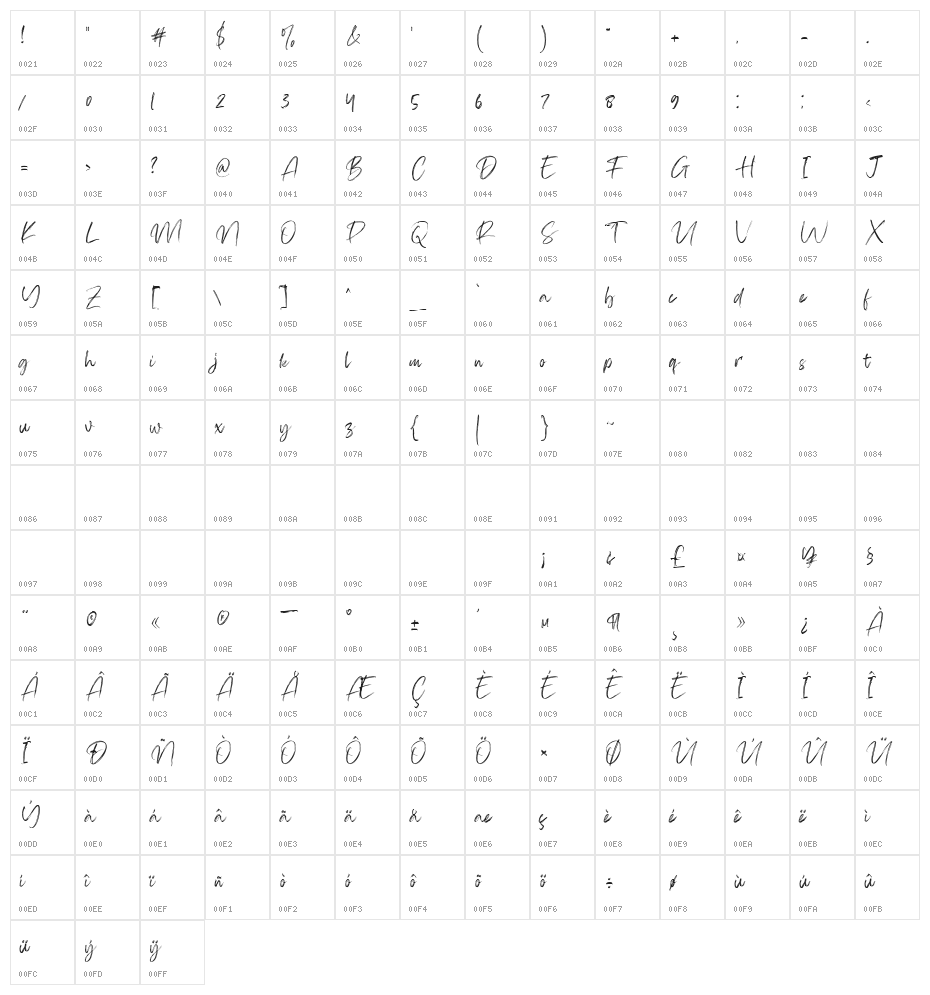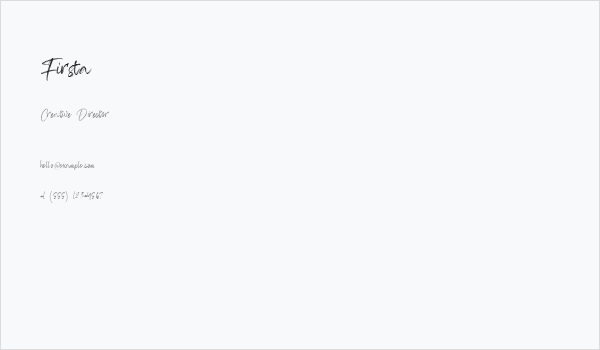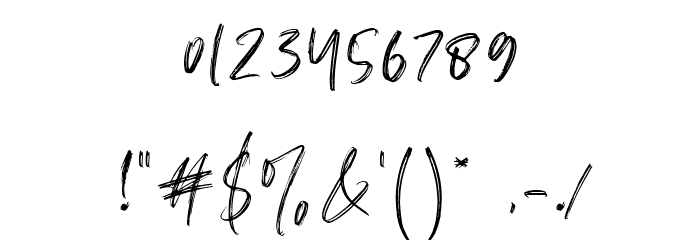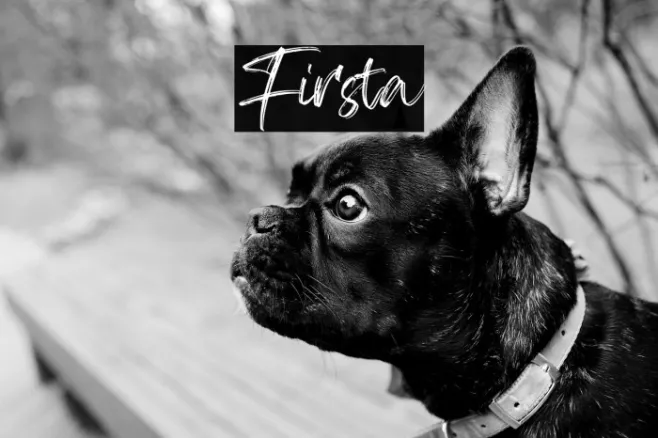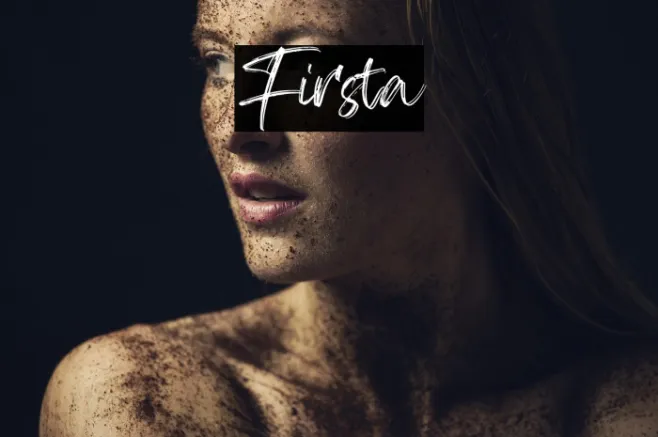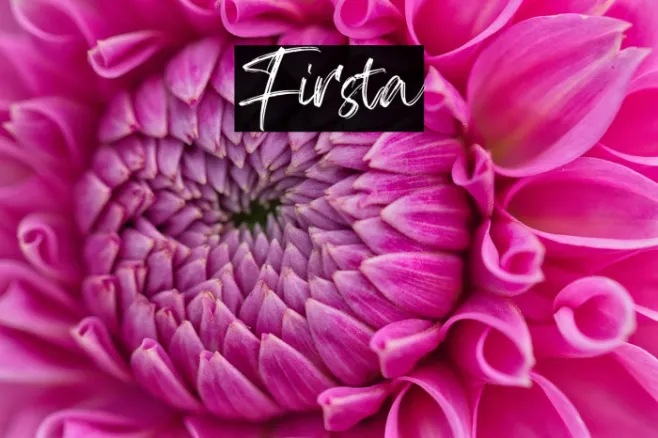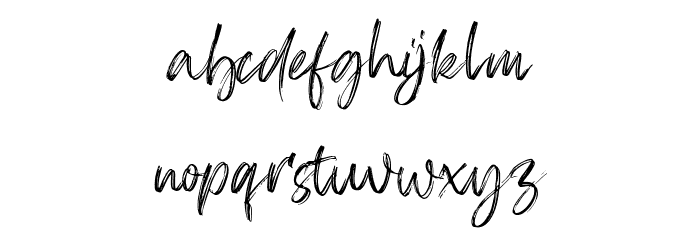
Firsta Font
Firsta Description
This font exudes a dynamic and expressive style, characterized by its handwritten appearance. The strokes are fluid and slightly irregular, giving it a personal and artistic touch. The uppercase letters are bold and prominent, while the lowercase letters maintain a consistent flow, enhancing readability. Numbers and special characters follow the same stylistic cues, ensuring a cohesive look across all elements. The overall design is both modern and casual, making it suitable for creative projects that require a personal touch. The font's unique charm lies in its ability to convey emotion and personality, making it ideal for artistic and informal applications.
| Proposed Projects | Ideal for greeting cards, invitations, personal branding, and artistic projects. |